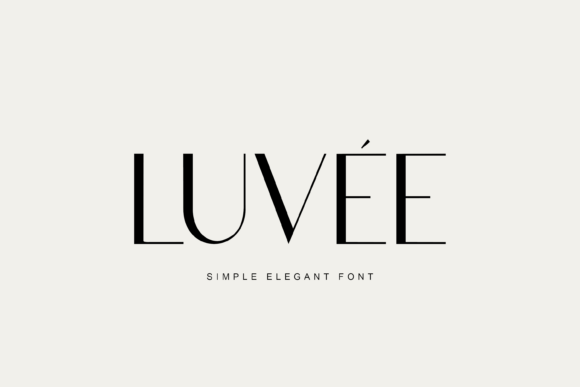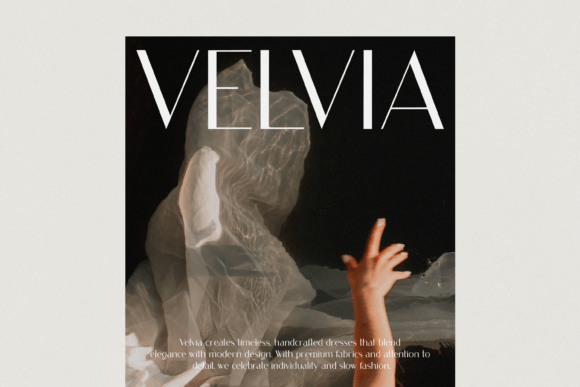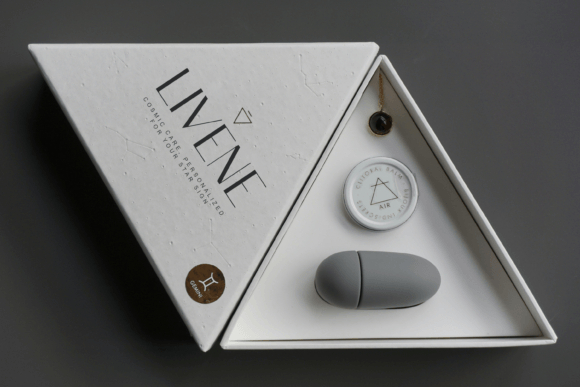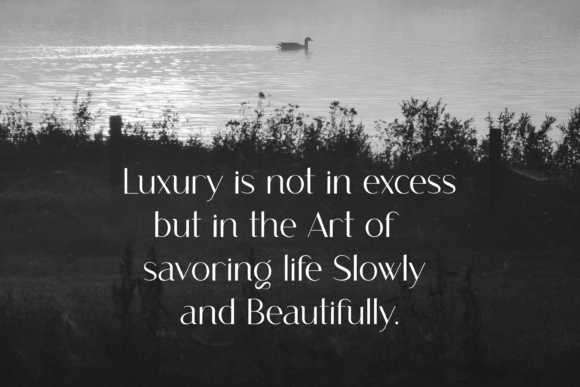
Luvee Font: Modern Minimalist Sans Serif for Elegant Branding
About the Luvee Font
Make a bold statement with Luvee Font, a powerful and memorable font. **Luvée** is a simple, elegant sans-serif font with clean lines and timeless style. Perfect for modern, minimalist designs, it adds a touch of sophistication to any project.
Luvée’s clean geometry makes it ideal for headlines, logos, and short-form text in branding materials and minimalist posters. Its elegance shines in packaging design for high-end products or sophisticated events. However, its minimalist nature means it’s less suitable for body text or lengthy paragraphs, where readability suffers. Avoid using it in UI elements requiring extensive text blocks.
Pairing Luvée effectively requires considering its inherent sophistication. A classic serif like Garamond or a geometric sans-serif like Futura provide a strong contrast and enhance its elegant quality. For a warmer feel, consider a script font like Cormorant Garamond, though used sparingly. Conversely, pairing it with a playful, rounded sans-serif could create an interesting tension, depending on the desired effect.
Luvée projects a refined and modern personality, conveying a sense of understated luxury and effortless style. It’s best suited for brands aiming for a clean, contemporary aesthetic that prioritizes simplicity and sophistication.